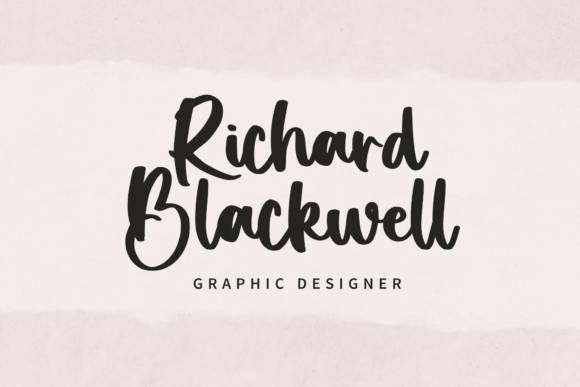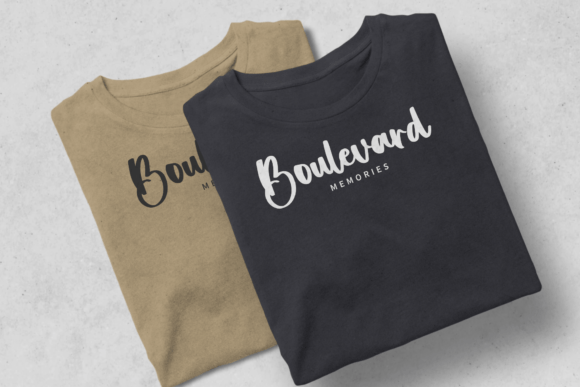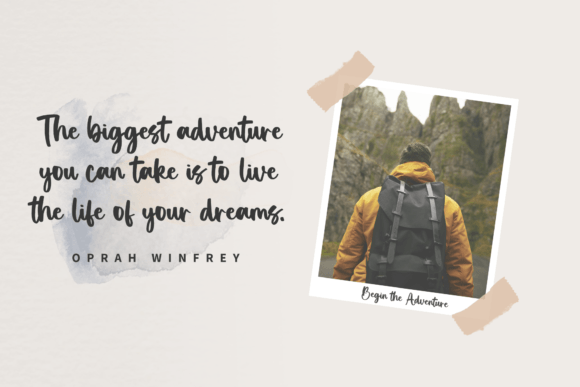
Introduction to Better Chocolatte Font
Introducing, β€œBetter Chocolatte font” is a font with unique and natural handwriting, has a natural curve, so that it makes your design better.
β€œBetter Chocolatte font” is perfect for branding logos, invitations, magazines, quotes, crafts, and more, there are standard ligatures in it, which will make your designs even better .
Better Chocolatte Font offers exceptional quality and versatility, making it a valuable addition to your design toolkit. Whether you’re creating for personal projects or commercial use, Better Chocolatte Font delivers professional results.